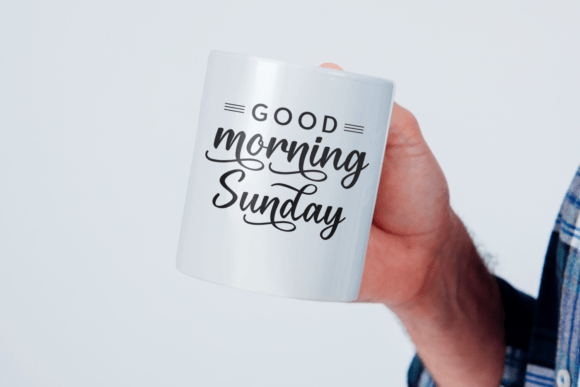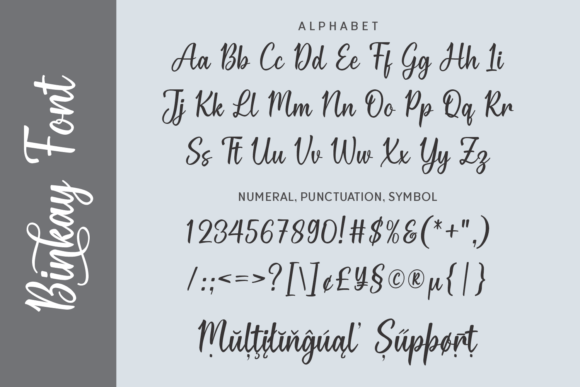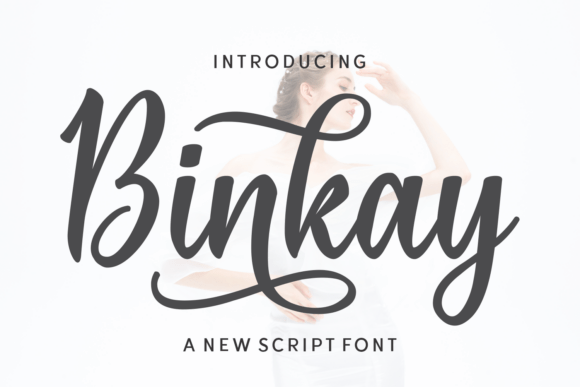
Binkay Font: Elevate Your Designs with Style and Sophistication
In the world of typography, fonts play a crucial role in conveying the tone and personality of a brand. For designers and crafters looking to add a touch of elegance and sophistication to their work, the Binkay font is an excellent choice. This stylish script font strikes the perfect balance between boldness and beauty, making it ideal for a variety of applications, from fashion branding to blog headers and promotional posters.
The Unique Characteristics of Binkay Font
Binkay font is distinguished by its dynamic strokes and swashy accents, which give it a unique and captivating appearance. The bold yet beautiful design makes it perfect for headlines, titles, and any other text that needs to stand out. The font’s stylish and elegant look is sure to add a touch of sophistication to any design project.
Uses of Binkay Font
The versatility of Binkay font makes it suitable for a wide range of applications. Some of the most popular uses include:
- Fashion Branding: The bold and stylish design of Binkay font makes it perfect for fashion brands looking to make a statement. Use it for logos, advertisements, or packaging to add a touch of glamour and sophistication.
- Blog Headers: Add a touch of elegance to your blog with Binkay font. Its dynamic strokes and swashy accents make it perfect for blog headers, titles, and section dividers.
- Promotional Posters: Create eye-catching promotional posters with Binkay font. Its bold and beautiful design is sure to grab attention and convey your message effectively.
Why Choose Binkay Font?
There are several reasons why Binkay font stands out from the rest:
- Unique Design: The dynamic strokes and swashy accents of Binkay font give it a unique and captivating appearance that sets it apart from other fonts.
- Versatility: Binkay font is suitable for a wide range of applications, from fashion branding to blog headers and promotional posters.
- Elegance and Sophistication: The stylish and elegant design of Binkay font adds a touch of sophistication to any design project.
Tips for Using Binkay Font
To get the most out of Binkay font, here are some tips to keep in mind:
- Use it for Headlines and Titles: Binkay font is perfect for headlines and titles, where its bold and stylish design can make a big impact.
- Experiment with Colors and Textures: Don’t be afraid to experiment with different colors and textures to add depth and interest to your design.
- Pair it with Other Fonts: Binkay font can be paired with other fonts to create a unique and visually appealing design.
In conclusion, Binkay font is a stylish script font that balances boldness and beauty, making it perfect for designers and crafters looking to add a touch of elegance and sophistication to their work. Its dynamic strokes and swashy accents give it a unique and captivating appearance, while its versatility makes it suitable for a wide range of applications. Whether you’re working on a fashion branding project, blog headers, or promotional posters, Binkay font is an excellent choice.
Get Creative with Binkay Font
So why wait? Get creative with Binkay font and take your designs to the next level. With its stylish and elegant design, Binkay font is sure to make a statement and leave a lasting impression on your audience.